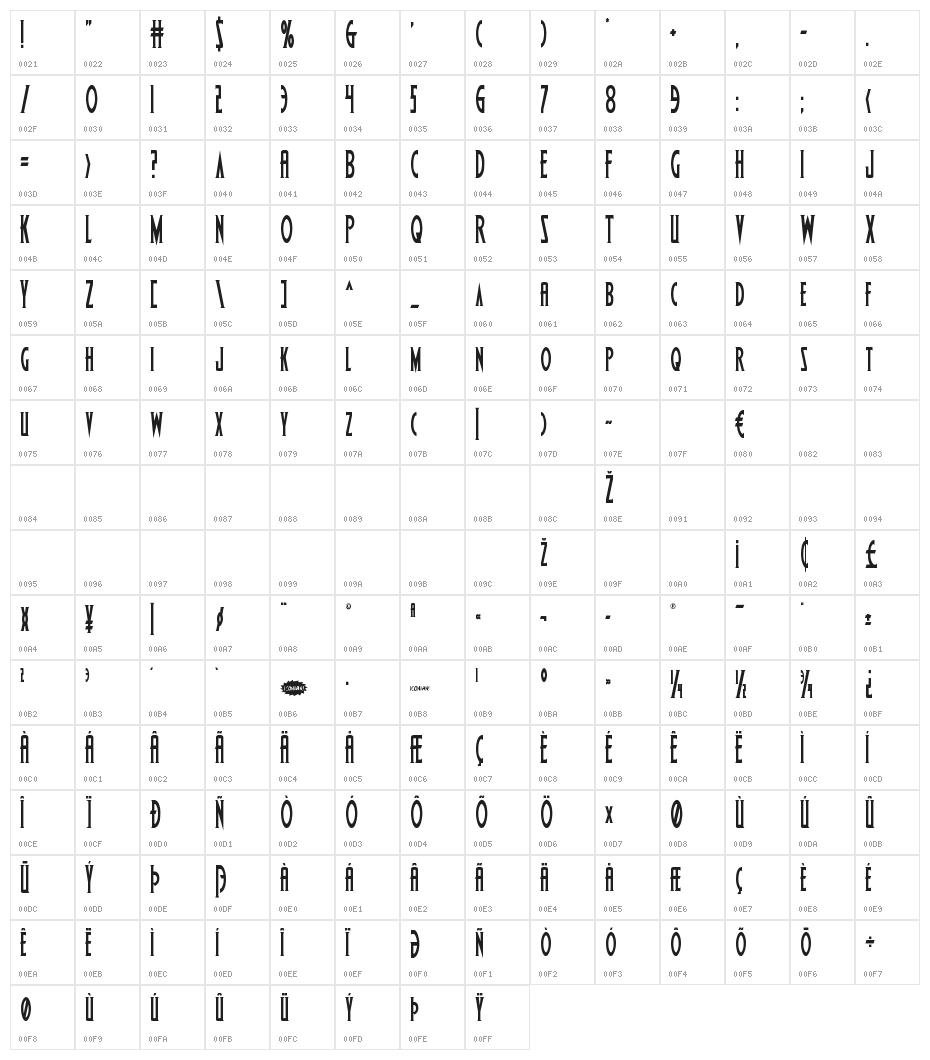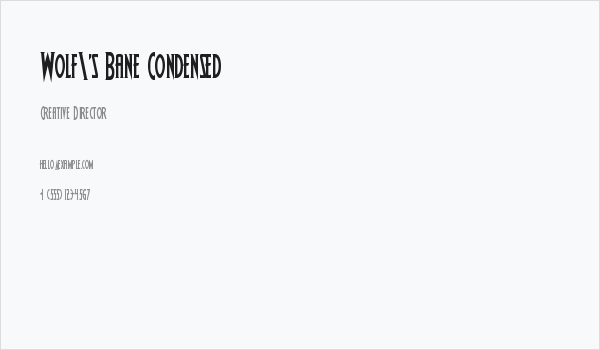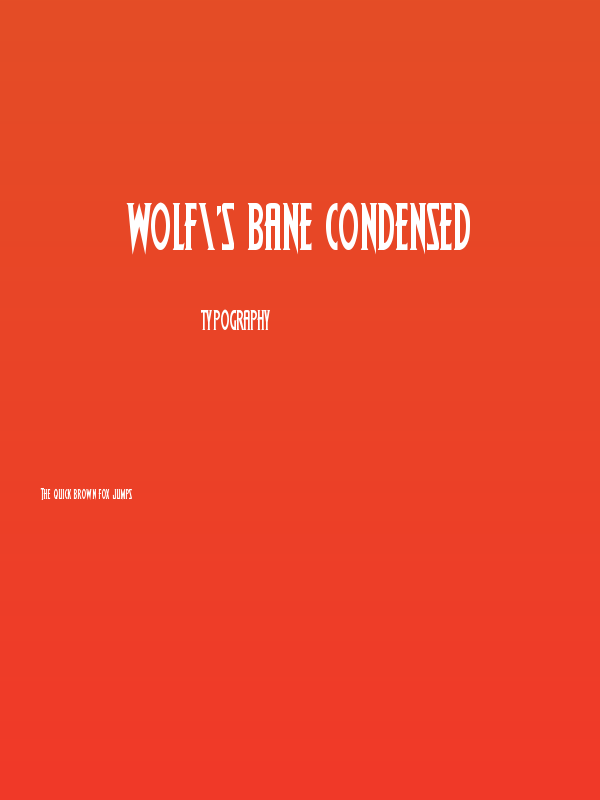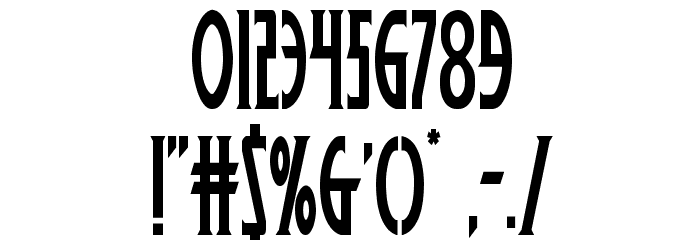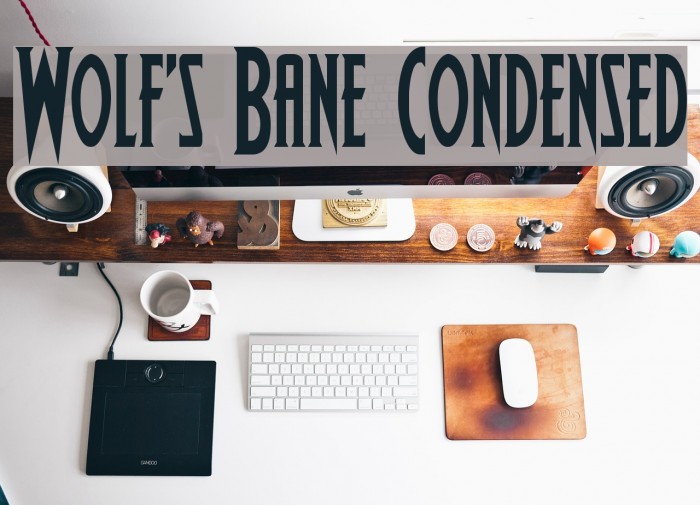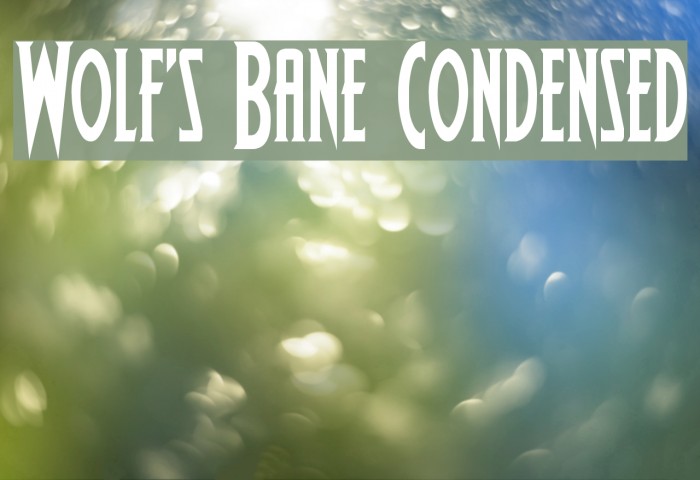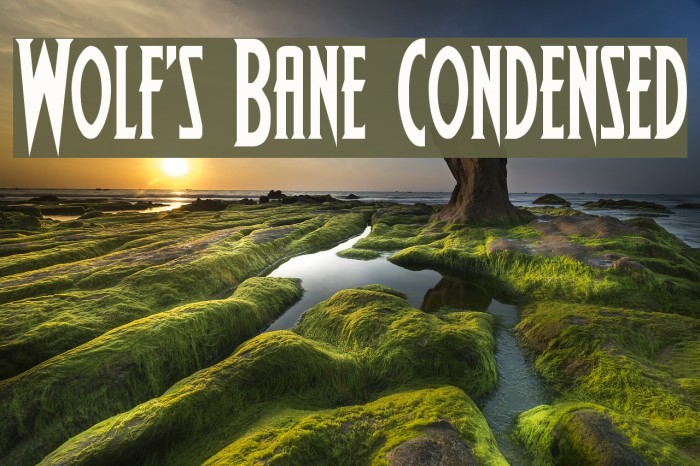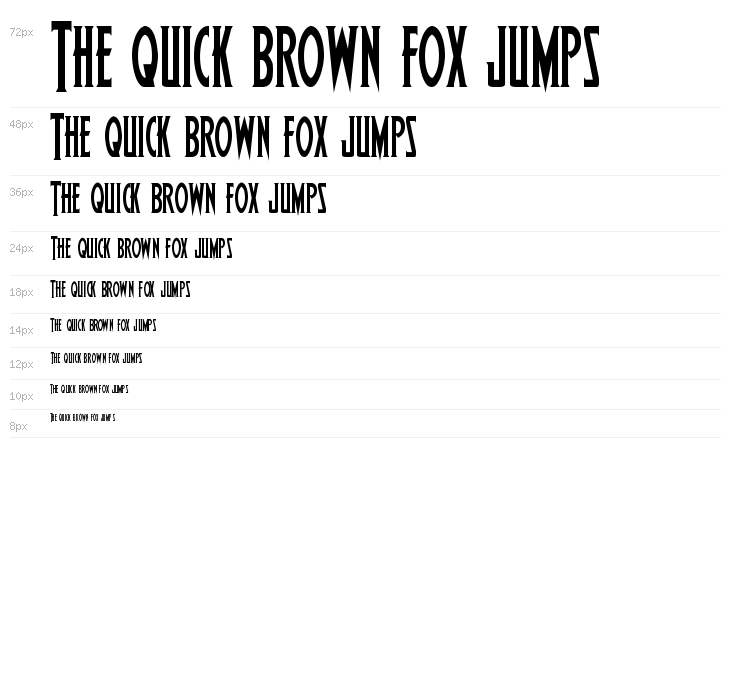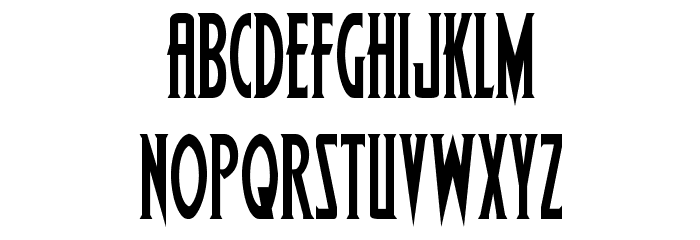
Wolf's Bane Condensed Font
Wolf's Bane Condensed Description
This font features a bold and condensed style with sharp, angular edges that give it a distinct and edgy appearance. The uppercase letters are tall and narrow, emphasizing verticality, while the lowercase letters maintain a consistent height, creating a uniform look. The numbers are similarly styled, with a unique flair that matches the overall aesthetic. Special characters are designed to complement the boldness of the letters, making them stand out. The font's design is reminiscent of vintage or retro styles, yet it maintains a modern twist, making it versatile for various design projects.
| Overall Style | Vintage, Modern |
| Proposed Projects | Ideal for poster designs, branding, logos, and any project requiring a bold, impactful typeface. |